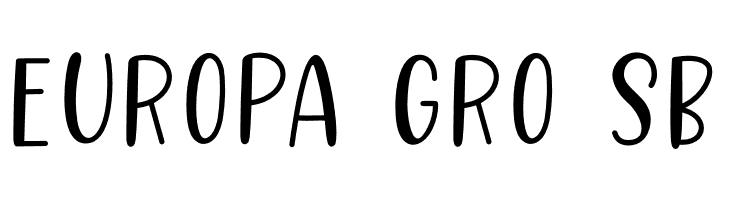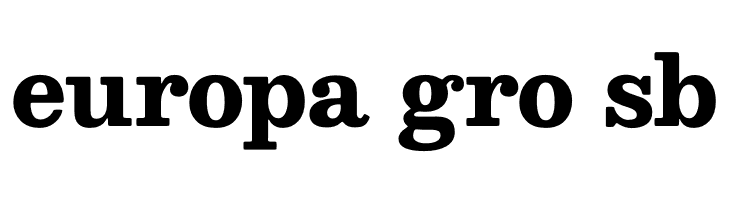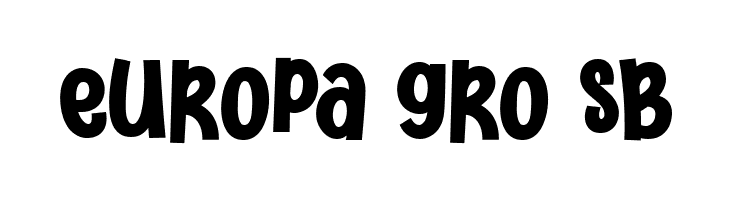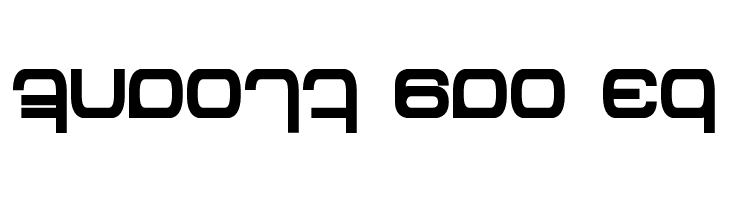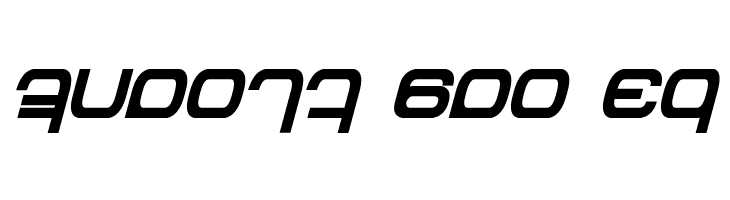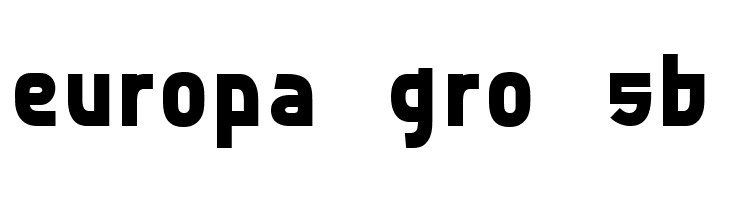
• Besley* Bold
A bold slab serif font with strong, block-like serifs and consistent stroke weight.
• Besley* Bold Italic
Bold, italic serif font with a classic yet dynamic style.
• Bestoom Bold
A bold, playful font with thick, rounded strokes and a whimsical style.
• Bestoom-Bold
A bold, playful font with rounded, whimsical characters.
• Betazed Bold
A bold, futuristic font with geometric and blocky letterforms.
• Betazed Bold Italic
A bold, italicized font with a futuristic and angular design.
• BetinaSans-Bold
A bold, modern sans-serif font with clean lines and excellent readability.
• BetinaSans-BoldItalic
• beton Bold
A bold, geometric font with strong, uniform strokes and a modern aesthetic.
• Better Caramel Sans Bold